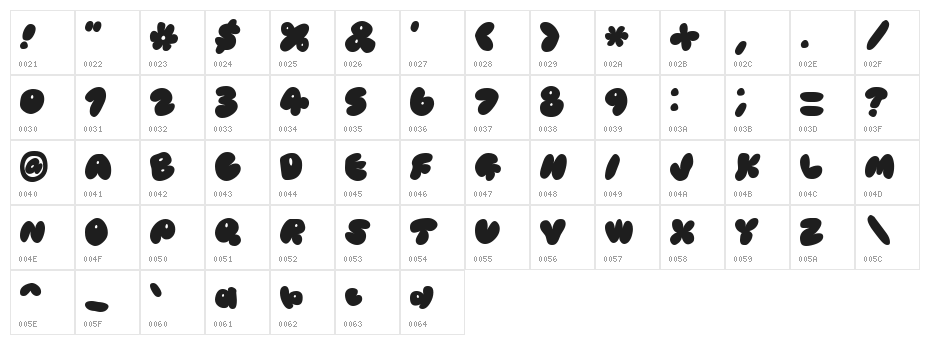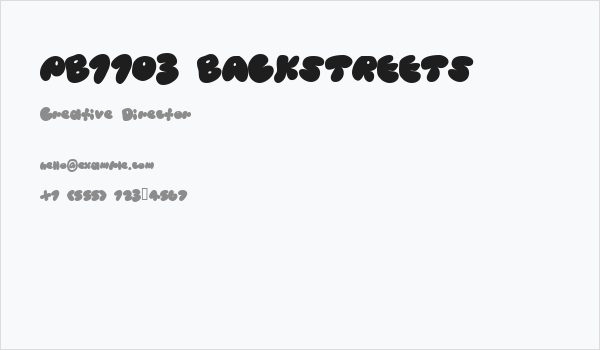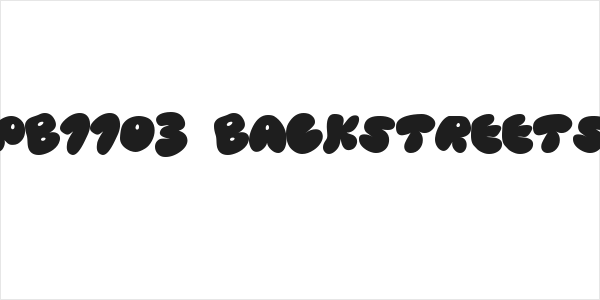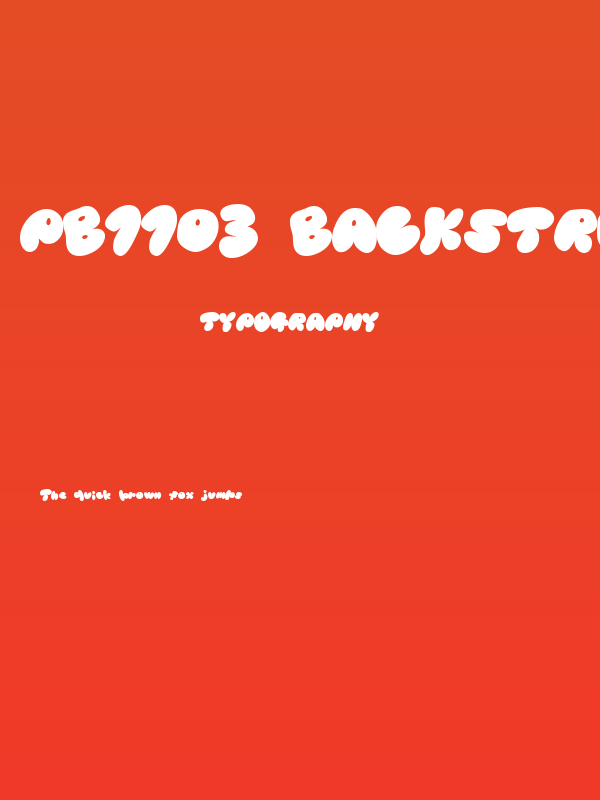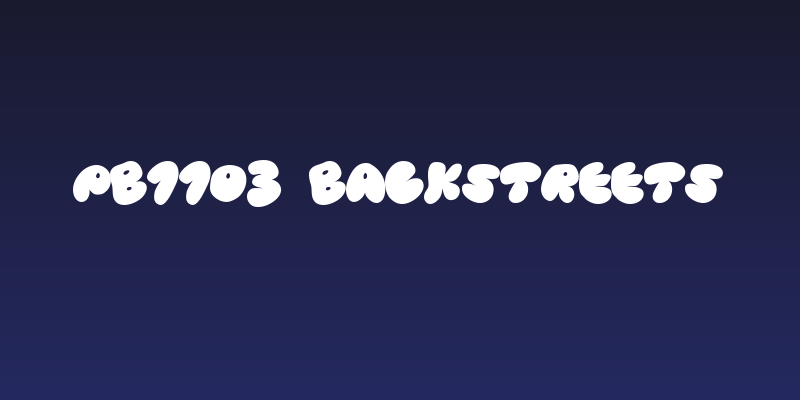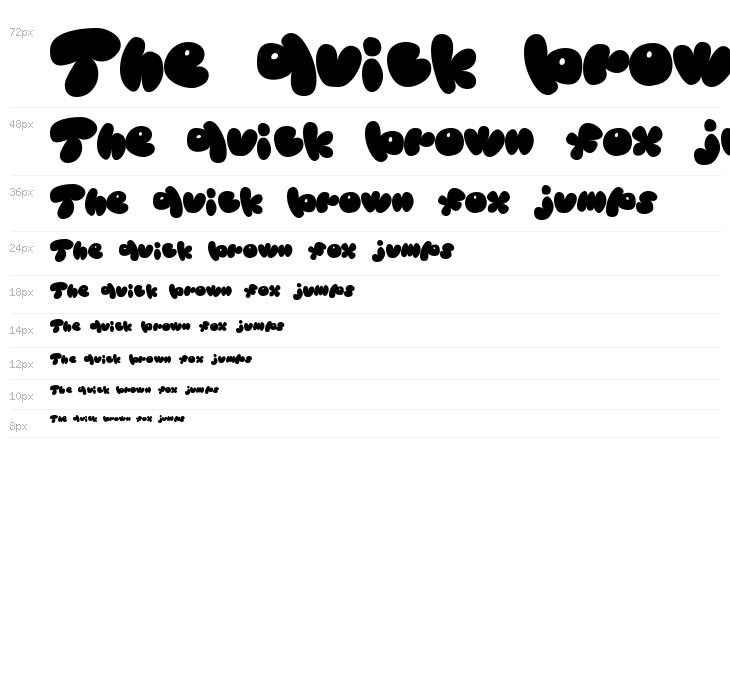
PB1103 BACKSTREETS Font
PB1103 BACKSTREETS Description
This font features a bold, playful style with rounded, bubble-like characters that convey a sense of fun and whimsy. The letters are uniformly thick, creating a cohesive and visually striking appearance. The exaggerated curves and smooth edges give it a friendly and approachable feel, making it ideal for projects that aim to capture attention and convey a lighthearted tone. The font's unique style is consistent across uppercase, lowercase, numbers, and special characters, ensuring versatility in various design contexts.
Overall StylePlayful
Proposed ProjectsIdeal for children's books, playful branding, party invitations, and eye-catching posters.